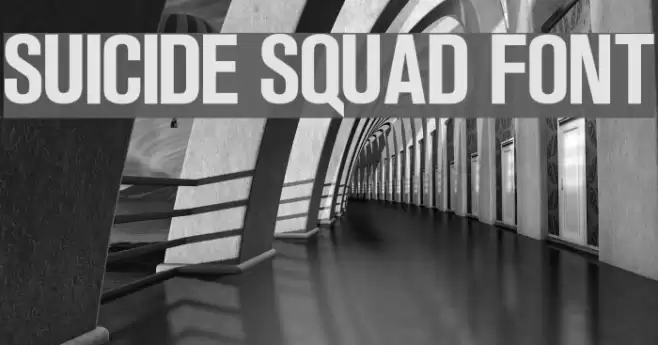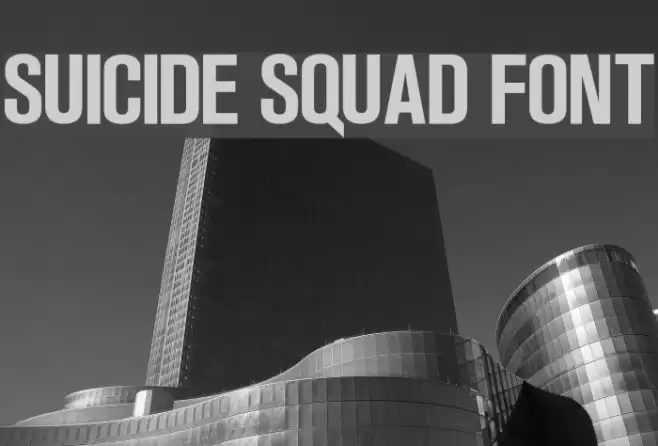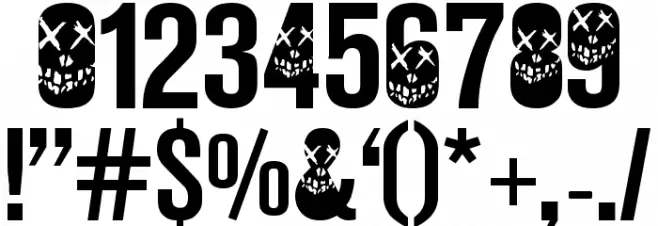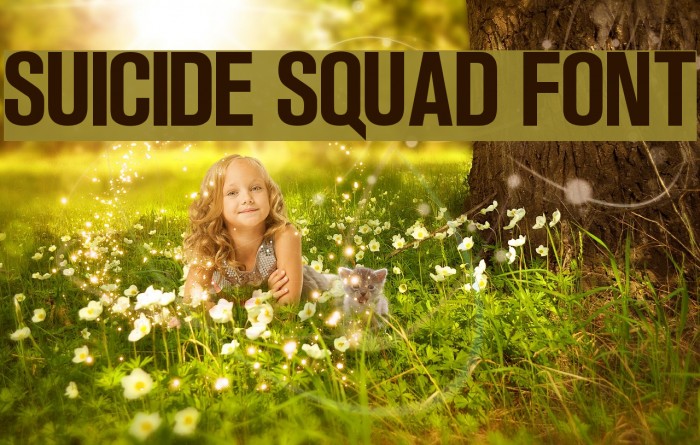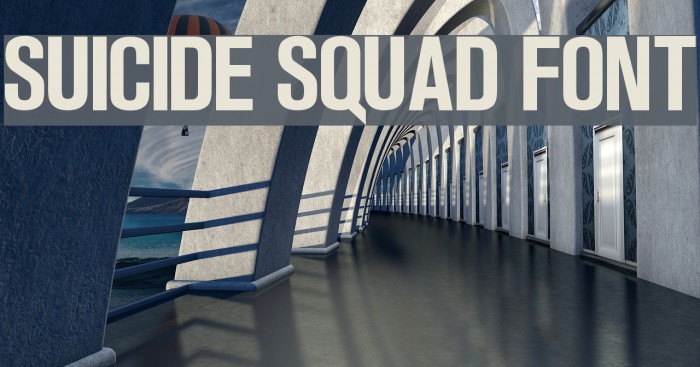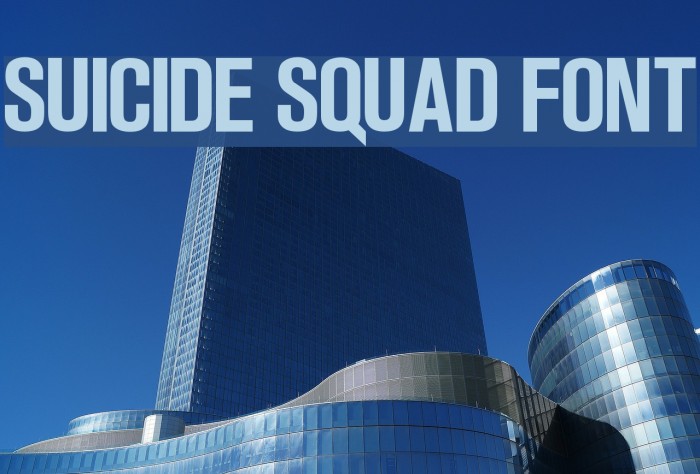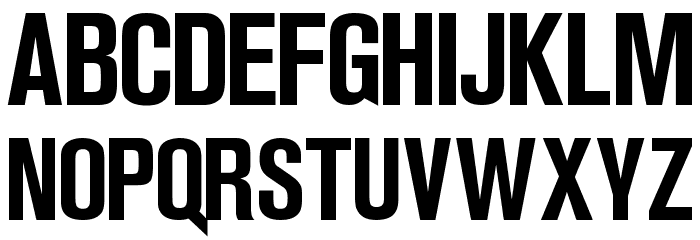
Suicide Squad Font Description
This font features a bold and striking design with a unique, edgy aesthetic. The uppercase letters are characterized by solid, block-like forms with some letters incorporating playful, skull-like details that add a rebellious and unconventional flair. The numbers and special characters follow a similar style, maintaining the boldness and distinctive elements. This font is designed to capture attention and convey a sense of daring and adventure, making it ideal for projects that require a strong visual impact.
A bold, edgy font with unique skull-like details for a rebellious look from Uncategorized fonts.
- Proposed Projects: Ideal for movie posters, video game titles, edgy branding, and promotional materials that require a bold and unconventional style.
- Overall Style: Modern, Decorative